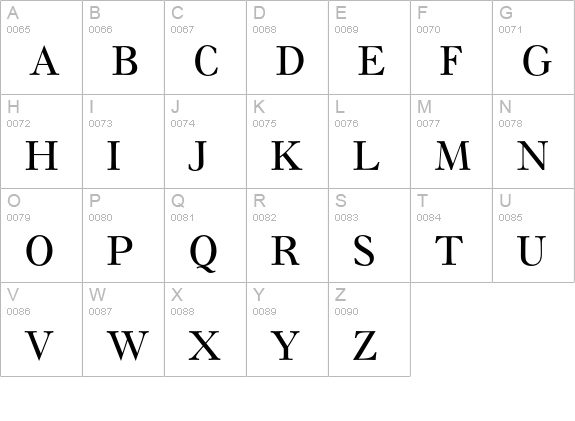
Else NPL Semi-Bold is a strong, high-contrast variant in the Else typeface family \xE2\x80\x94 well suited to headlines, attention-grabbing titles, and strong calls-to-action.
Else NPL Semi-Bold is a modern and sophisticated typeface that strikes the perfect balance between elegance and readability. With its clean lines and distinctive features, this font exudes a sense of professionalism and style. Its semi-bold weight adds a touch of boldness without sacrificing legibility, making it ideal for a wide range of design projects. And the best part? Else NPL Semi-Bold is available for free download at FontsMarket.com. Whether you're working on a branding project, editorial design, or any other creative endeavor, this font is sure to elevate your work and make a lasting impression. Embrace the versatility and timeless appeal of Else NPL Semi-Bold as you bring your designs to life.